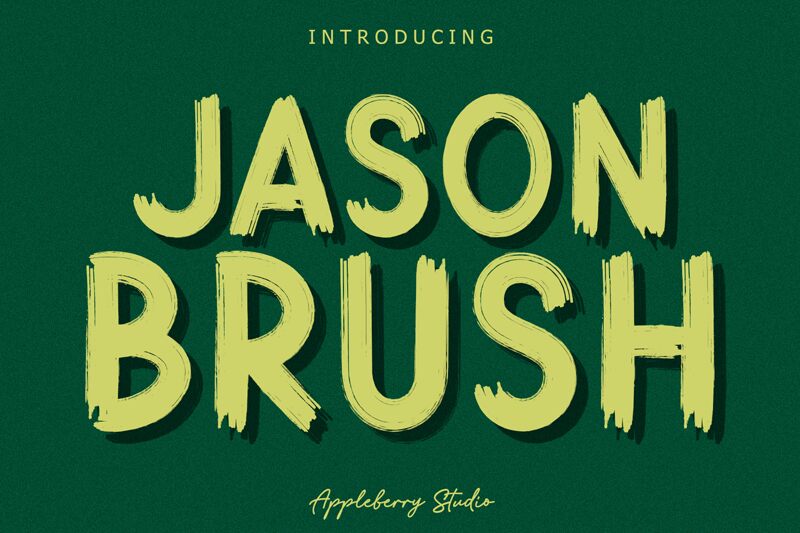
Introducing Jason Brush - a script brush font created by Rahmad Hidayat. Its bold strokes and handwritten look make it perfect for logos, quotes, packaging designs, wedding invitations and more!